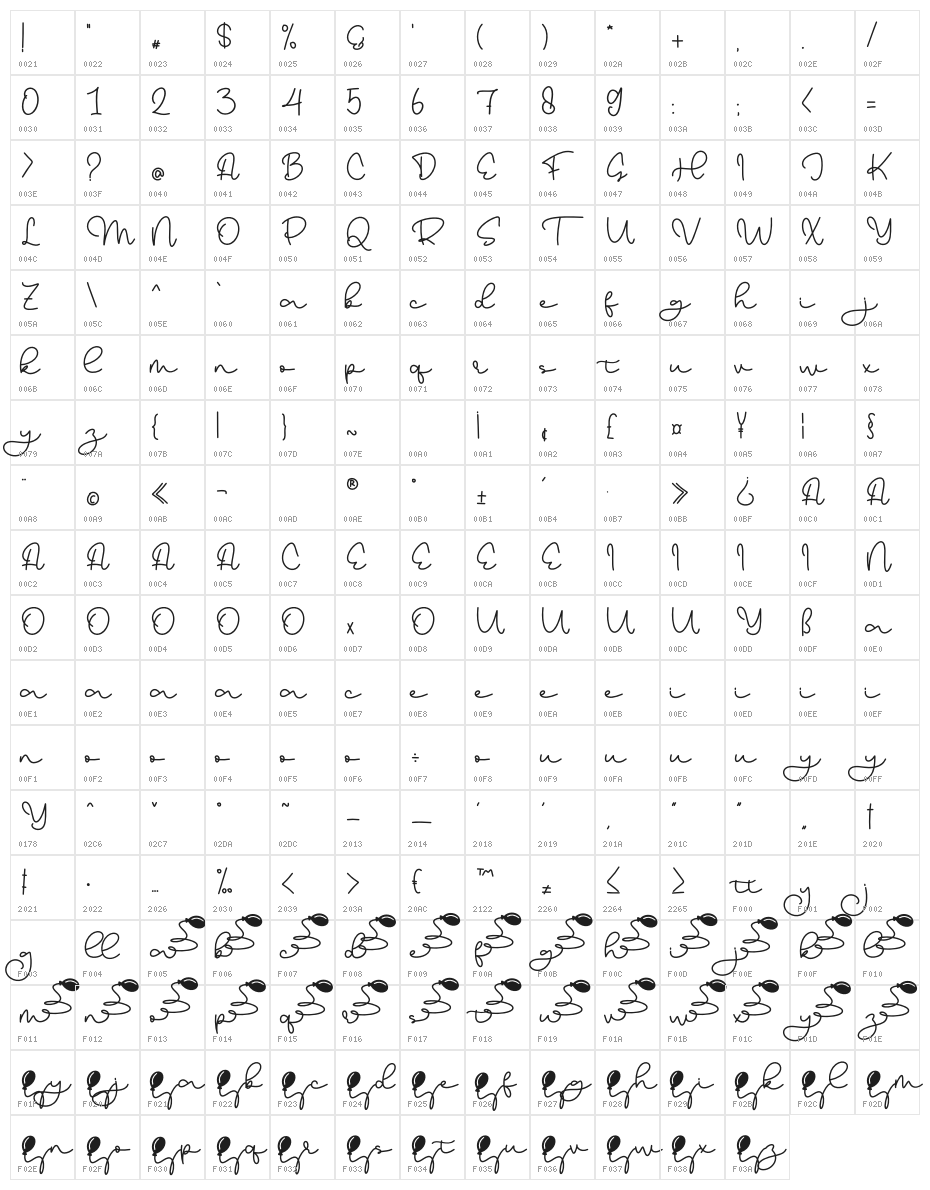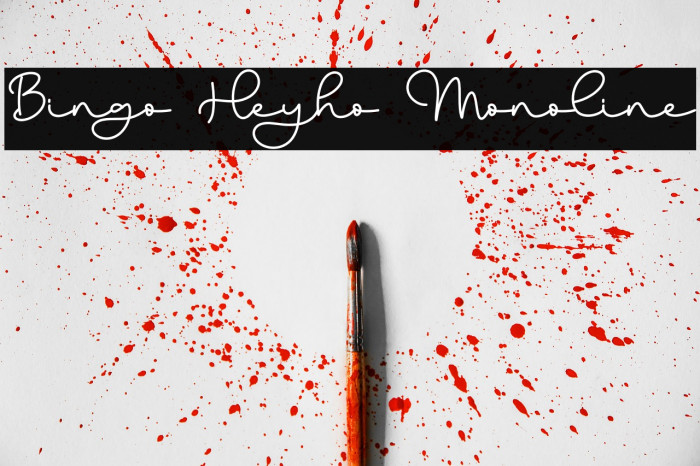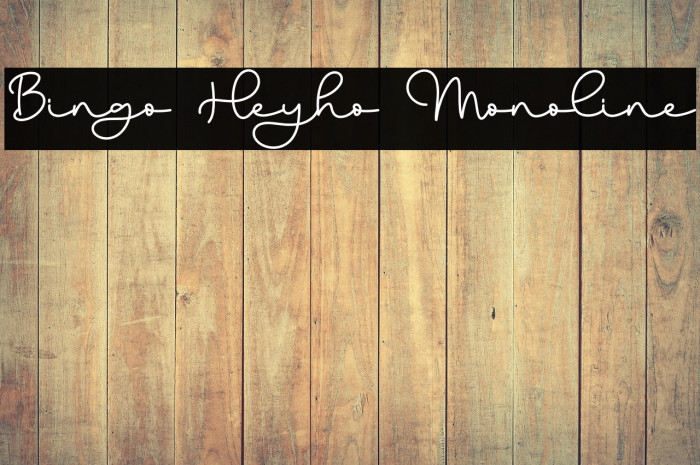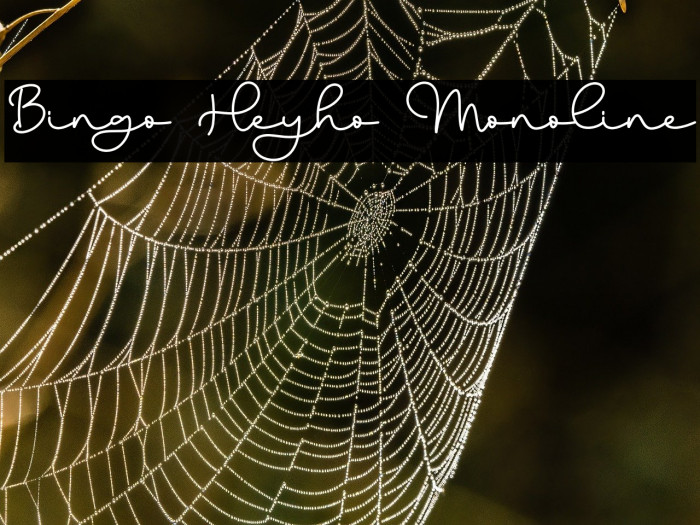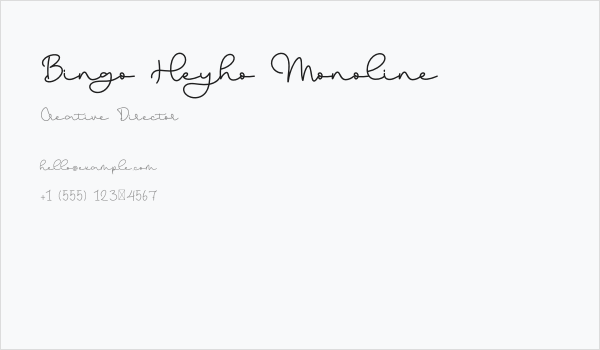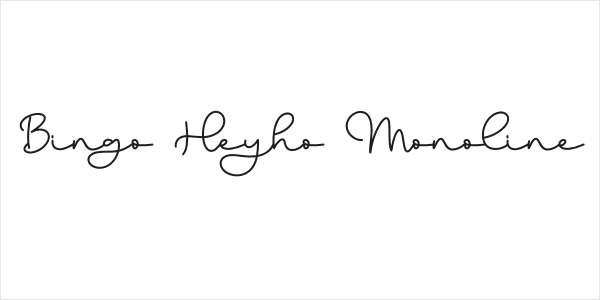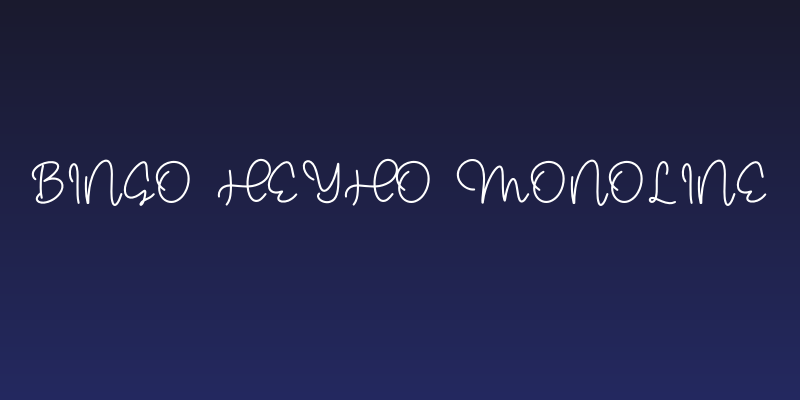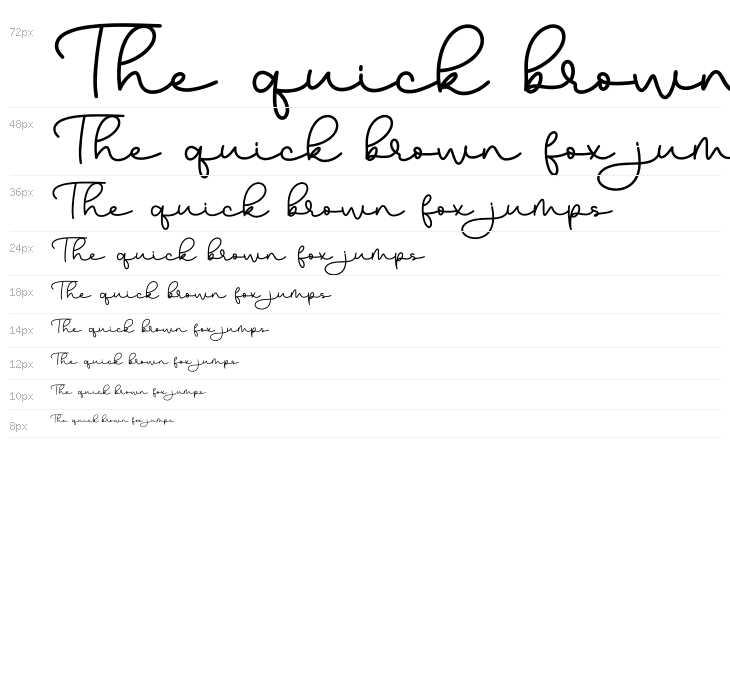
Bingo Heyho Monoline Font
Bingo Heyho Monoline Description
A playful, monoline script font with a handwritten style, featuring smooth curves and a casual appearance.
| Overall Style | Casual, Handwritten |
| Use Case | Logos, Invitations, Personal projects |
| Proposed Projects | Greeting cards, invitations, personal branding. |